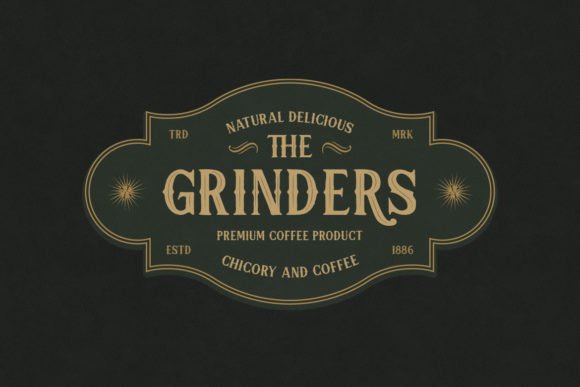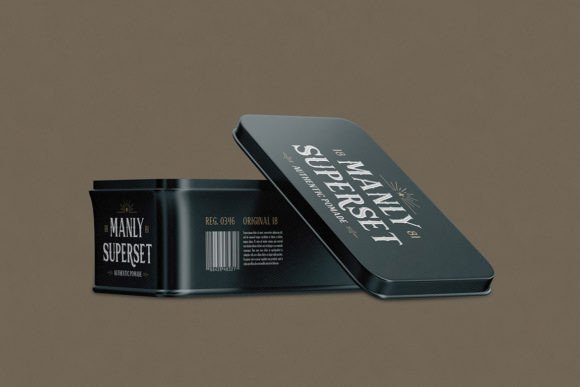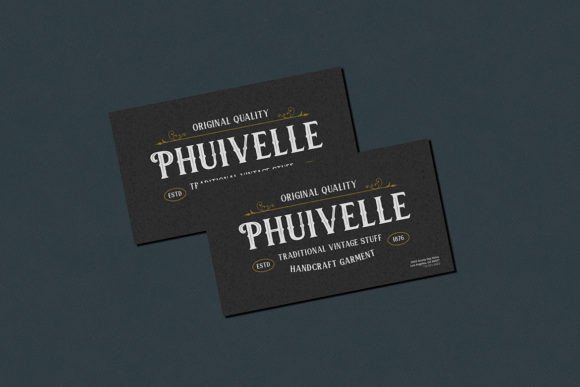
Introduction to Prince of Village Font
Prince of Village is a vintage serif font.
It can be used for various purposes such as logos, headings, coffee shops, vintage restaurants, letterhead, signage, labels, news, posters, badges, and so much more .
Key Features of Prince of Village Font